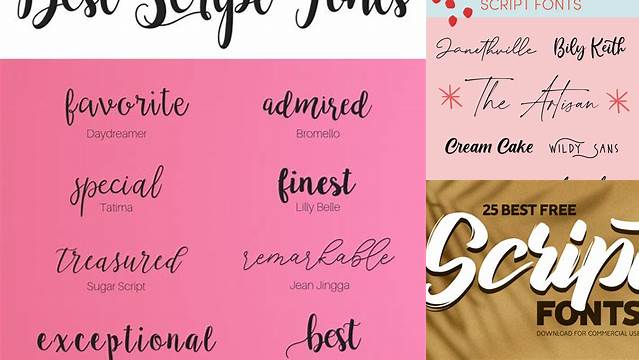
Download Free Script Fonts: Best Picks For Stunning Designs
Hey guys! Are you looking to add a touch of elegance and personality to your designs? Look no further! Script fonts are your secret weapon. They mimic the fluid strokes of handwriting, adding a personal and sophisticated flair to everything from wedding invitations to website headers. The best part? You don't have to break the bank to get your hands on some amazing fonts. There are tons of fantastic script fonts available for free download, and I'm here to guide you through the best ones and how to use them.
What are Script Fonts?
First, let's dive into what makes a script font a script font. These fonts are inspired by calligraphy and handwriting, featuring flowing, connected strokes and a graceful appearance. Unlike blocky or sans-serif fonts, script fonts have a more organic and artistic feel. They’re perfect for projects where you want to convey warmth, creativity, or a sense of luxury. Think about wedding invitations, greeting cards, logos, branding materials, and even social media graphics. A well-chosen script font can instantly elevate your design, making it more memorable and engaging. Now, you might wonder why choose script fonts at all? Well, they bring a unique human touch to your projects. In a world dominated by digital perfection, a script font can inject personality and authenticity. They're versatile too! You can use them for elegant headings, quotes, signatures, and even body text (though sparingly, for readability's sake). Plus, with so many styles available—from classic calligraphy to modern brush lettering—you're sure to find the perfect script font to match your project's vibe.
Why Use Script Fonts?
So, why should you even bother with script fonts? There are so many reasons, but let’s break down the main ones. Script fonts are incredibly versatile. Whether you're designing a chic wedding invitation or a cool logo, there's a script font out there that fits the bill. The key is to find the one that matches the tone and style of your project. If you are aiming for elegance and formality, a classic calligraphy script font might be your best bet. But if you're going for something more modern and playful, a brush script font or a quirky handwritten style could be perfect. Script fonts have a knack for grabbing attention. They stand out from the crowd, making your designs more memorable. Think about it: how often do you see a sleek, modern logo with a script font element? It's a surefire way to make a statement. But remember, with great power comes great responsibility. Use script fonts judiciously. Overusing them can make your design look cluttered and hard to read. A script font is like a splash of gourmet seasoning – a little goes a long way. And let’s not forget the emotional connection. Script fonts have a way of evoking feelings and associations. A flowing calligraphy script font might remind you of love letters and romance, while a bold brush script font might give off a sense of energy and creativity. Choosing the right script font can help you tell a story and connect with your audience on a deeper level. It's all about finding the perfect match for your design's narrative. So, whether you're designing for a heartfelt occasion or a trendy brand, script fonts can be a powerful tool in your design arsenal. Just remember to use them wisely, and you'll be creating stunning visuals in no time.
Where to Find Free Script Fonts
Alright, let's get to the good stuff – where can you find these amazing script fonts without spending a dime? The internet is a treasure trove of free resources, but it’s important to know where to look and how to make sure you're getting quality fonts that are also safe to use. There are several reputable websites that offer a wide variety of script fonts for free download. Websites like Fontspace, DaFont, and Creative Fabrica (which often has freebies) are great starting points. These sites have huge libraries of fonts, including tons of script fonts in various styles. You can easily browse through categories, filter by style, and even preview how your text will look in the font before you download it. Another fantastic resource is Google Fonts. Google Fonts offers a curated selection of high-quality, open-source fonts that are free to use for any project, commercial or personal. They have a growing collection of script fonts, and the best part is that these fonts are optimized for web use, so they'll look great on your website. When you’re browsing for script fonts, pay attention to the licensing information. Most free fonts come with specific terms of use, so it’s important to make sure you’re allowed to use them for your intended purpose. Some fonts are free for personal use only, while others can be used commercially. Always double-check the license to avoid any potential legal issues down the road. And remember, while free fonts are fantastic, it's also a good idea to support font designers if you can. If you find a script font you absolutely love and use frequently, consider purchasing a commercial license or donating to the designer. This helps them continue creating amazing fonts for everyone to enjoy. So, happy hunting for those perfect script fonts! With a little bit of searching, you’ll find tons of options to add that special touch to your designs.
Top Free Script Fonts to Download
Okay, guys, now for the fun part – let's dive into some specific script fonts that you can download for free right now! I've curated a list of some of my absolute favorites, covering a range of styles from elegant and formal to playful and modern. These fonts are all high-quality, free for personal use (and some even for commercial use), and they're sure to add a special touch to your projects. First up, we have Great Vibes. This is a classic calligraphy script font that exudes elegance and sophistication. It's perfect for wedding invitations, elegant logos, and anything that needs a touch of formality. The flowing strokes and beautiful swashes make it a real standout. Next, there’s Pacifico. If you're looking for a casual and friendly script font, Pacifico is an excellent choice. It has a retro vibe with a handwritten feel, making it ideal for social media graphics, blog headers, and fun branding projects. It’s super readable and has a charming, approachable quality. For something a bit more modern and edgy, check out Playlist Script. This brush script font has a bold and dynamic feel, perfect for posters, apparel designs, and anything that needs a bit of a punch. It has a raw, hand-painted texture that adds a unique and stylish touch. If you're after a delicate and feminine script font, Mrs Saint Delafield is a must-try. This elegant script font features fine lines and graceful curves, making it perfect for wedding designs, feminine branding, and delicate stationery. It has a timeless appeal that's both beautiful and understated. Another fantastic option is Kaushan Script. This script font has a playful and quirky personality, making it great for children's designs, greeting cards, and anything that needs a touch of whimsy. It's bold and legible, with a unique character that will make your designs pop. And let's not forget Dancing Script. This lively and informal script font is perfect for adding a fun, handwritten touch to your projects. It's great for quotes, headings, and anything that needs a lighthearted feel. These are just a few examples of the amazing free script fonts out there. I encourage you to explore and experiment with different fonts to find the perfect ones for your unique projects. Remember to always check the licensing terms before using a font, and have fun creating!
How to Use Script Fonts Effectively
Alright, you've downloaded some awesome script fonts – now what? It’s not enough to just have a beautiful font; you need to know how to use it effectively to create stunning designs. Script fonts, while gorgeous, can be tricky to work with if you’re not careful. But don't worry, I'm here to share some tips and tricks to help you master the art of script font usage. First and foremost, readability is key. Script fonts can be harder to read than simpler fonts, so you need to make sure your message is still clear. Avoid using script fonts for large blocks of text. They're best used for headings, titles, logos, and short phrases where readability is less of an issue. For body text, stick to simpler fonts like sans-serif or serif styles. Pairing script fonts with the right fonts is crucial. A good rule of thumb is to pair a script font with a clean, minimalist font. This creates a nice contrast and keeps your design balanced. Try pairing a flowing calligraphy script font with a simple sans-serif font for a modern and elegant look. Or, you could use a bold brush script font with a classic serif font for a more vintage feel. The key is to create a visual hierarchy and make sure the fonts complement each other. Spacing and kerning are also important factors. Because script fonts have connected strokes, proper spacing is essential to ensure readability. Adjust the kerning (the space between individual letters) and the tracking (the overall spacing between letters) to make sure the font looks balanced and legible. Overlapping letters can look messy, so make sure each letter has enough breathing room. Another tip is to use script fonts sparingly. A little goes a long way. Don't overuse them, or your design will look cluttered and overwhelming. Use a script font as an accent to highlight key words or phrases, and let it shine. Think of it as the star of the show, supported by a strong cast of supporting fonts. And finally, consider the context. The script font you choose should match the tone and style of your project. A formal calligraphy script font might be perfect for a wedding invitation, but it wouldn't be the best choice for a tech startup's logo. Think about the message you want to convey and choose a script font that aligns with that message. By following these tips, you'll be able to use script fonts effectively and create designs that are both beautiful and functional. So, go ahead and experiment – have fun with it, and let your creativity flow!
So there you have it, guys! A complete guide to the world of free script fonts. We've covered what script fonts are, why they're so awesome, where to find them, some top picks to download, and how to use them effectively. Armed with this knowledge, you're ready to elevate your designs to the next level. Remember, script fonts are a fantastic tool for adding personality, elegance, and a human touch to your projects. They're perfect for a wide range of applications, from wedding invitations to logos to social media graphics. But the key to using script fonts well is to use them wisely. Think about readability, pairing fonts, spacing, and context. Don't be afraid to experiment and try out different combinations to find what works best for your project. And most importantly, have fun with it! Design is all about creativity and self-expression, so let your imagination run wild. With so many amazing free script fonts available, there's no limit to what you can create. So go ahead, download some new fonts, and start designing something beautiful today. And don't forget to share your creations with the world – I can't wait to see what you come up with! Happy designing, everyone!